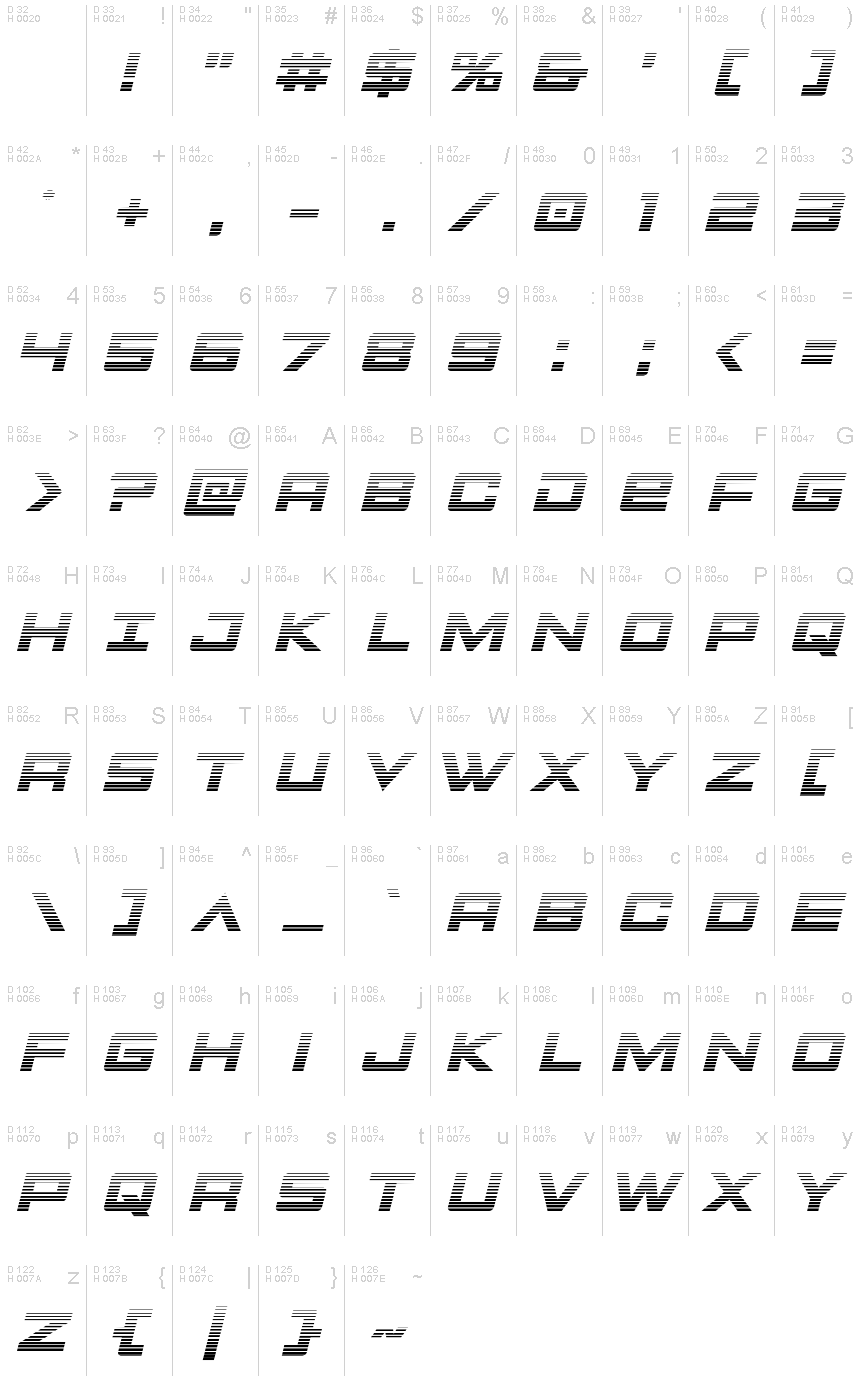
Montroc Gradient Italic
Montroc is a striking display font that exudes a decidedly futuristic flair. Designed by Daniel Zadorozny, this expanded, gradient italic typeface boasts a sleek, angular aesthetic that seamlessly blends modern minimalism with a touch of retro-futuristic charm. The distinct gradient effect adds depth and visual interest, making Montroc an ideal choice for attention-grabbing headlines, bold branding, and impactful digital interfaces.
Its expanded width lends a sense of grandeur and confidence, making it a versatile option for a wide range of applications, from sci-fi-inspired movie posters to cutting-edge product packaging.